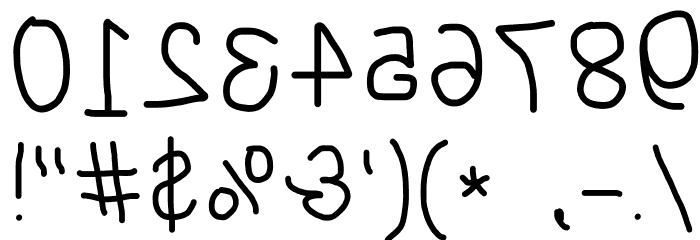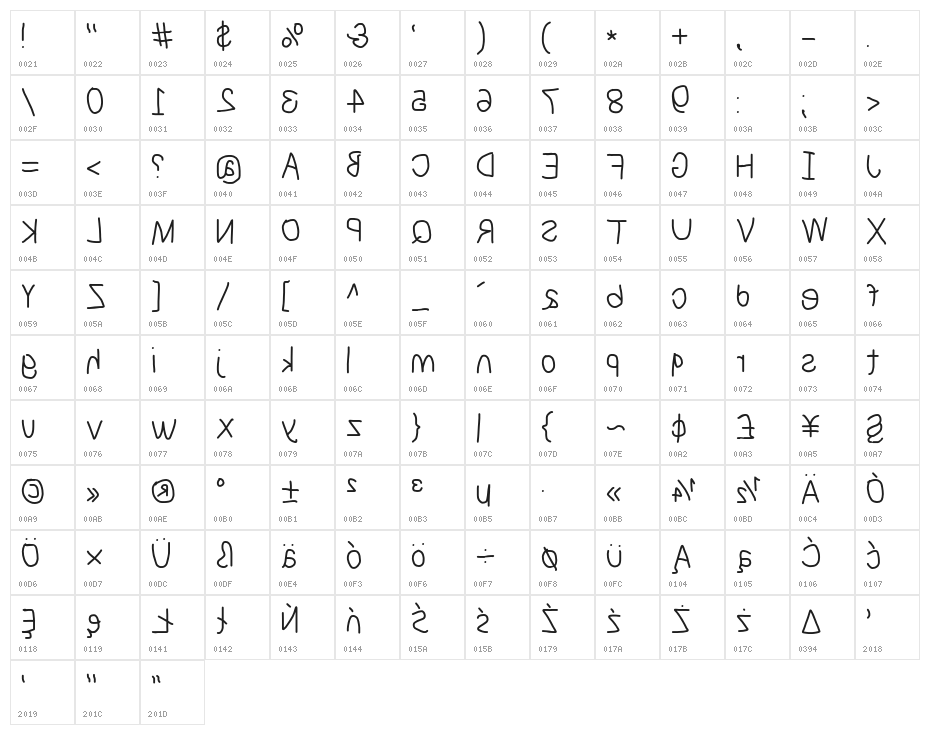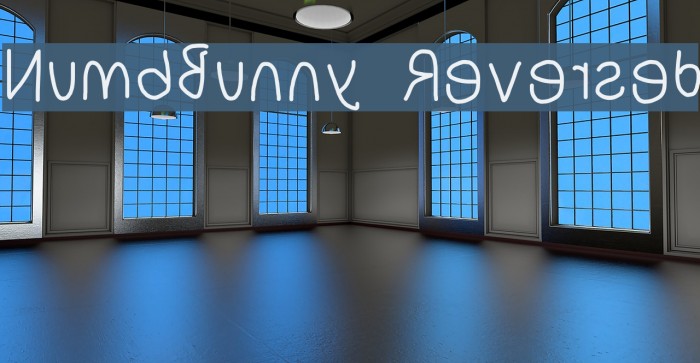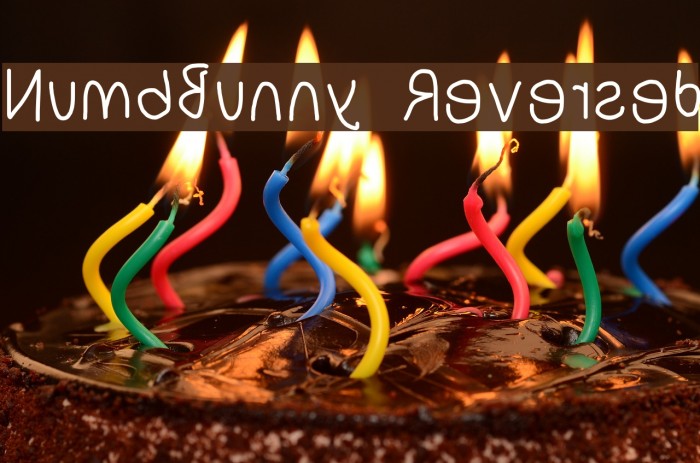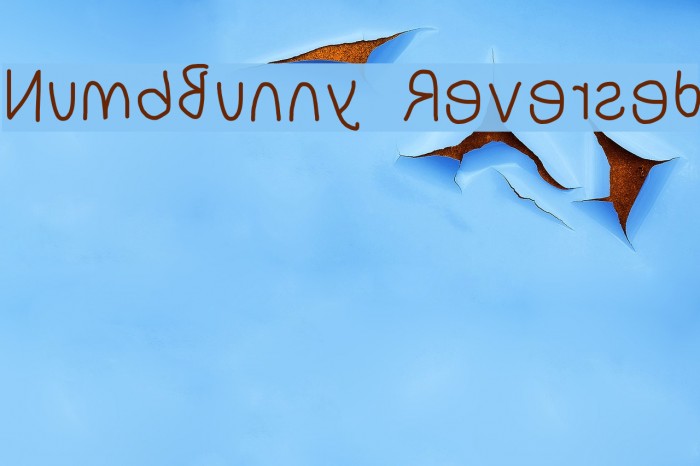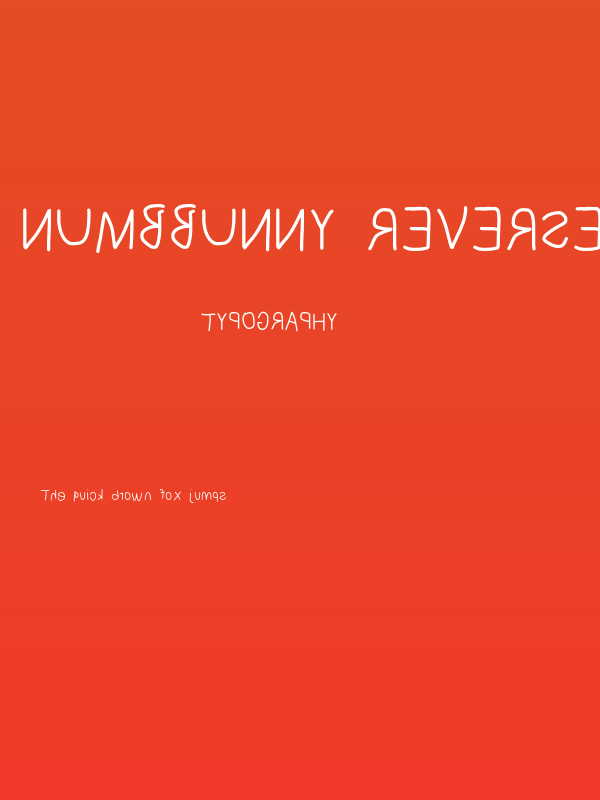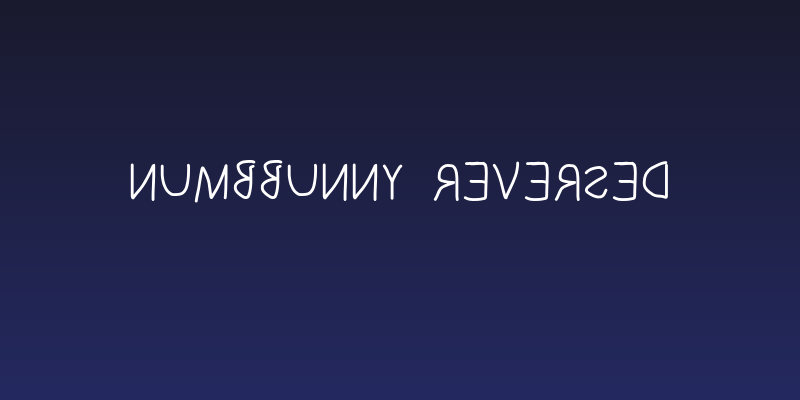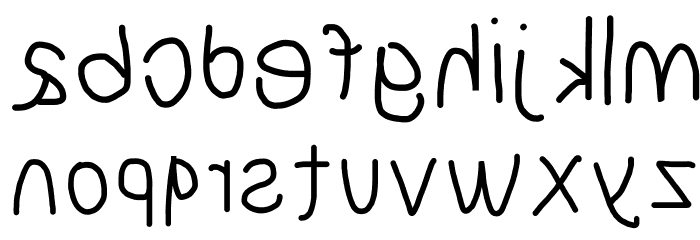
NumbBunny Reversed Font
NumbBunny Reversed Description
This playful and quirky font features a handwritten style with a casual and informal appearance. The characters are slightly irregular, adding a whimsical touch to the overall design. The strokes are consistent in width, providing a uniform look across all letters and numbers. The font includes a full set of uppercase and lowercase letters, numbers, and a variety of special characters. Its unique style makes it suitable for creative projects that require a fun and approachable aesthetic.
| Proposed Projects | Ideal for children's books, greeting cards, playful branding, and creative social media graphics. |